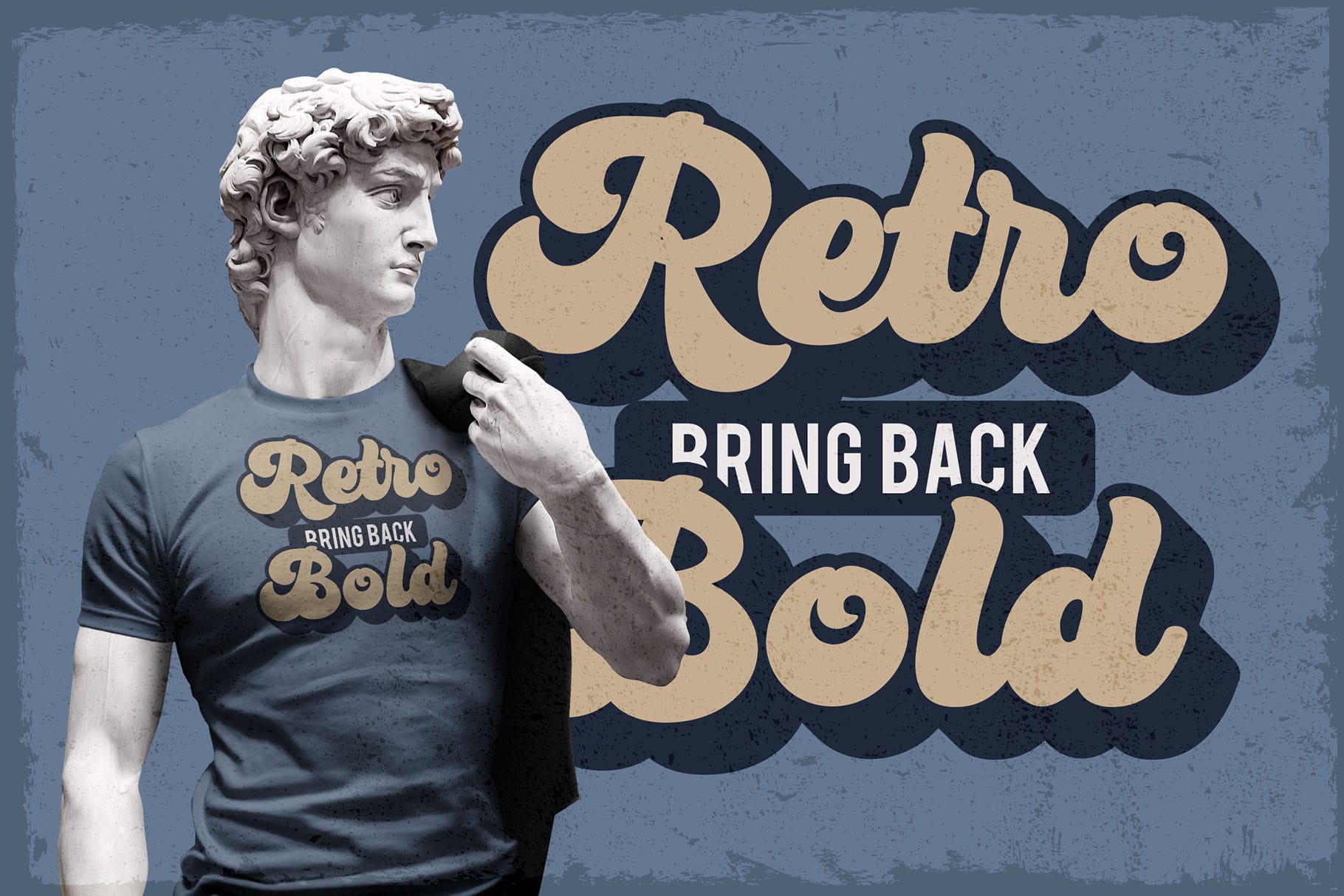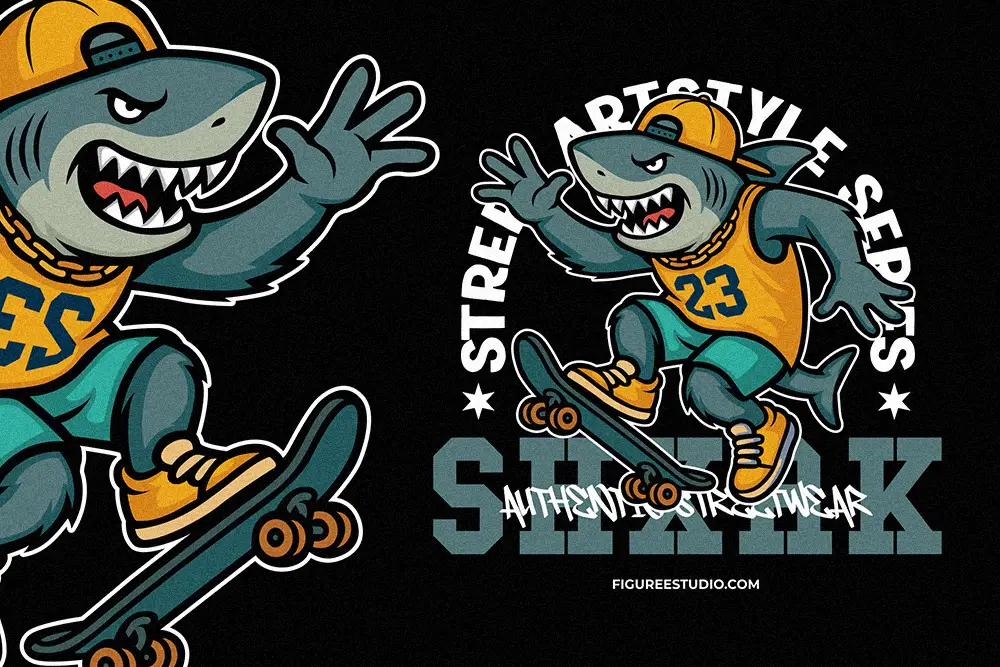
In today’s digital world, choosing the right fonts for branding is more crucial than ever. Font trends for branding go beyond aesthetics—they’re an essential tool for building a brand’s identity. From custom designs to modern sans-serifs, the latest font trends can help elevate your brand, convey your message, and make a lasting impression.
More and more brands are going for custom fonts or variable fonts to set themselves apart. Custom fonts are created exclusively for a brand, making them unique and authentic. Variable fonts, on the other hand, let you tweak the font’s style, weight, and slant—giving you more flexibility in your design.
Custom Font Examples:
Sans-serif fonts are still a go-to for many brands. Their clean and simple look is perfect for creating a professional yet approachable vibe. Fonts like Helvetica Now and Montserrat are favorites when it comes to modern, minimal design.
Sans-Serif Font Examples:
Retro fonts are making a big comeback, especially for brands looking to evoke a sense of nostalgia or bring in a timeless vibe. Whether it’s from the 70s or 80s, these fonts add a fun, unique look to any design.
Retro and Vintage Font Examples:
Script fonts that mimic handwriting are perfect for brands in the luxury or personal industries. These fonts add elegance and charm to any design, creating a more sophisticated feel.
Script Font Examples:
Display fonts are designed to stand out. They’re ideal for headers or titles that need to make an impact. These fonts are bold, decorative, and often experimental—perfect for brands that want to grab attention immediately.
Display Font Examples:
Fonts aren’t just about the typeface—they’re about color too! Gradients and neon fonts are popping up everywhere, giving designs a fresh, modern look. Gradient fonts add depth and movement, while neon fonts bring energy and vibrancy.
Font Examples for Color Experiments:
Monospace fonts—where each letter takes up the same width—are making a stylish comeback. These fonts are often used in tech or coding-related designs, but they also add a cool, retro feel to any project.
Monospace Font Examples:
Choosing the right font for your brand is more than just picking something that looks good. It’s about finding a font that aligns with your message and helps your brand connect with your audience. With the latest font trends, you can take your branding to the next level and create a design that’s fresh, memorable, and uniquely yours.